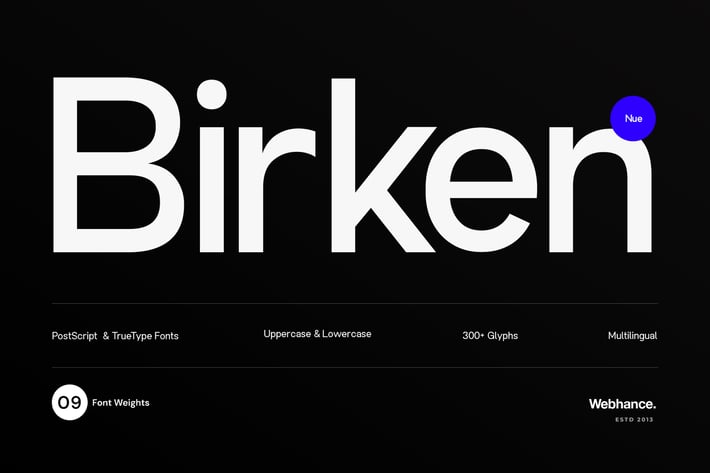
Birken Nue - A Minimal Sans-Serif Font Family
Introducing Birken Nue, a versatile and refined sans-serif font family, carefully crafted to enhance your design projects with its sleek, modern aesthetic. Featuring 09 finely tuned weights, from Thin to Heavy (100 to 900 ), along with web fonts.
Perfect for branding, logos, websites, social media graphics, Instagram posts, Facebook ads, Pinterest designs, TikTok videos, poster designs, YouTube thumbnails, editorial layouts, and more, Birken Nue seamlessly adapts to both print and digital formats. Its clean lines and balanced proportions ensure exceptional clarity and readability, making it an ideal choice for app interfaces, online ads, and e-commerce designs.
Supported Languages
Basic
Western European (France, Germany, Italy, Spain, Portugal...)
Central European (Poland, Czech Republic, Hungary, Slovakia...)
South Eastern European (Romania, Bulgaria, Serbia, Croatia...)
South American (Brazil, Argentina, Chile....)
Oceanian (Australia, New Zealand...)
Esperanto
Uppercase and lowercase letters
09 Weights
300+ Glyphs
Font designed and developed by Webhance Studio